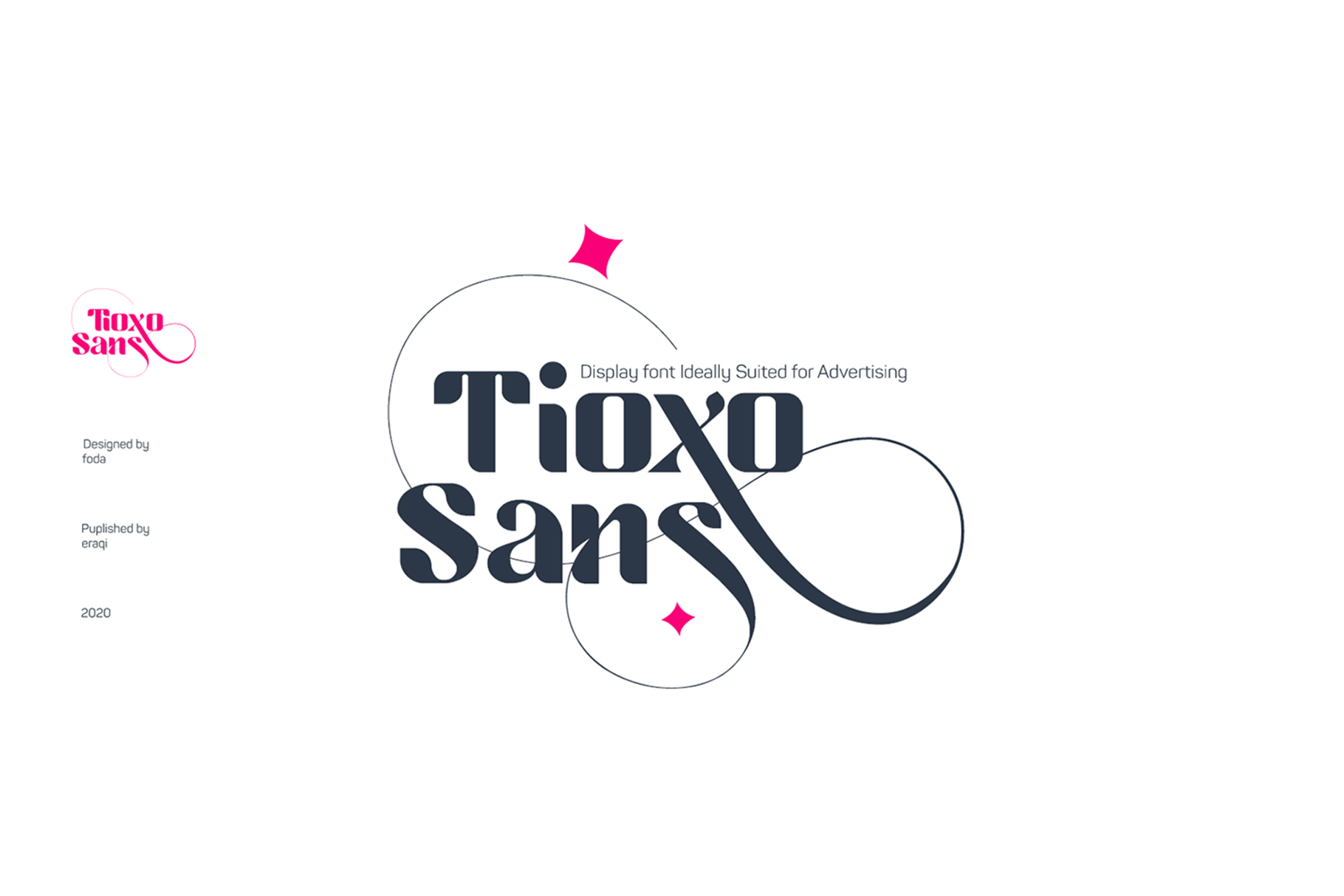
Tioxo Sans Font
Tioxo Sans is a display font of a single weight, ideally suited for advertising and packaging, festive occasions, editorial and publishing, creative industries and posters .